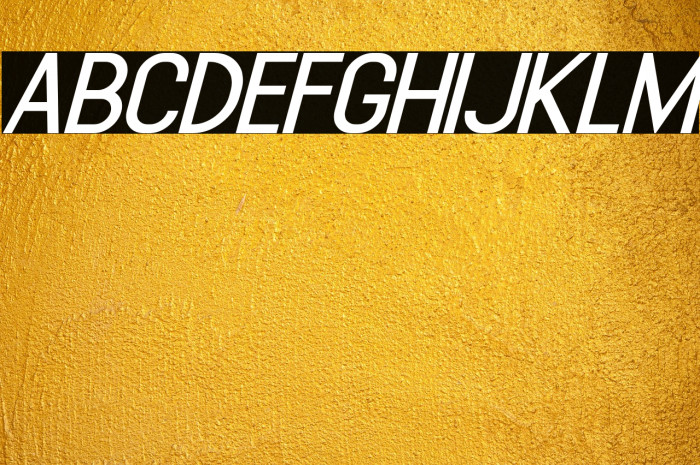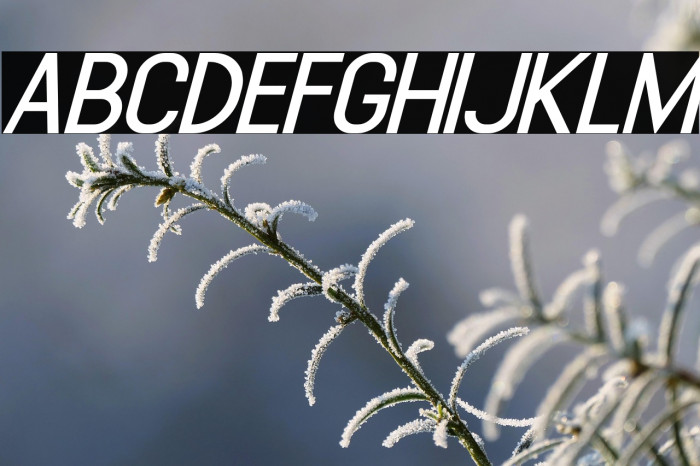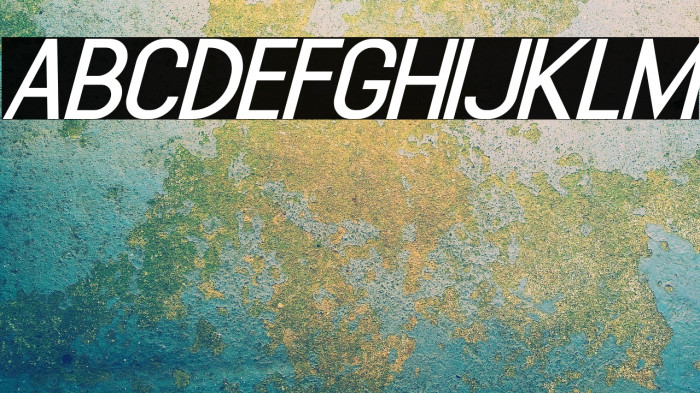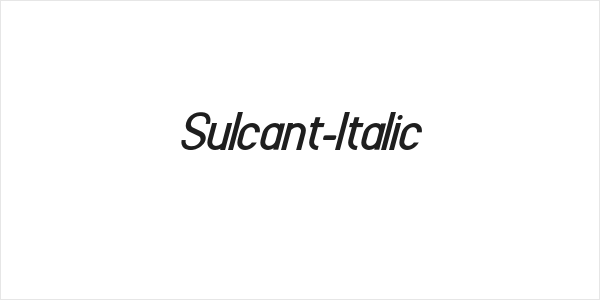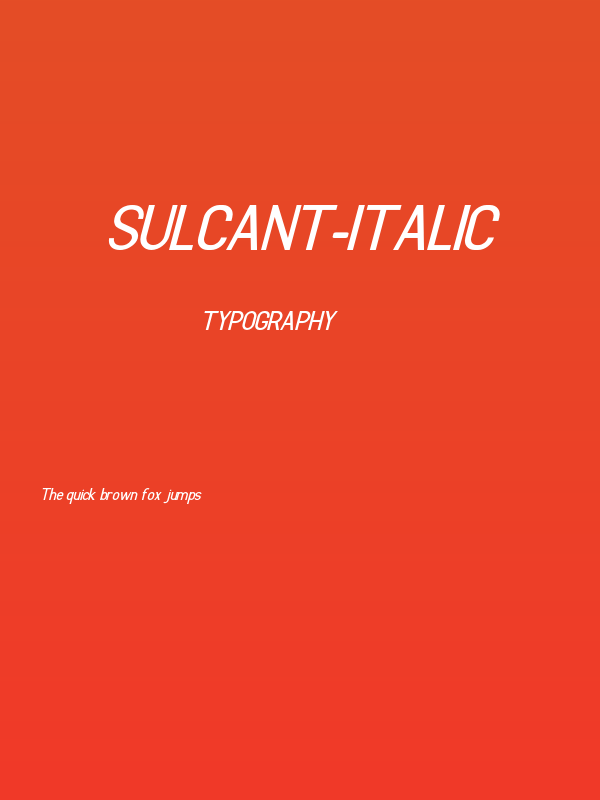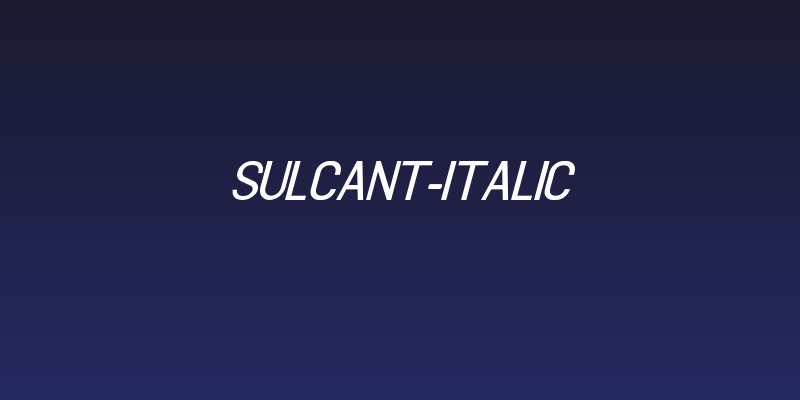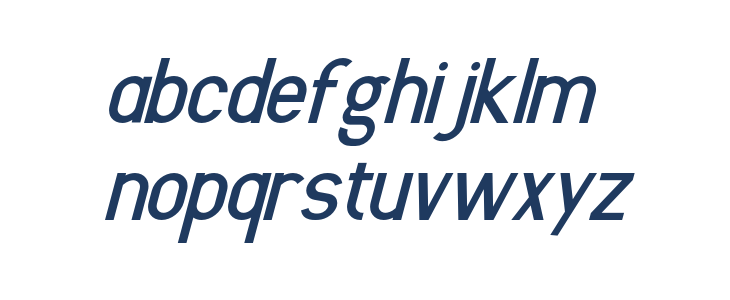
Sulcant-Italic Font
Sulcant-Italic Description
This font exhibits a sleek and modern italic style, characterized by its clean lines and slightly condensed form. The letters are slanted, giving a dynamic and forward-moving appearance. The strokes are consistent in weight, providing a uniform look across all characters. The uppercase and lowercase letters maintain a harmonious balance, while the numerals are clear and easy to read. Special characters are well-integrated, maintaining the overall aesthetic. This font's design is both functional and stylish, making it suitable for a variety of applications.
| Use Case | Headlines, Logos, Editorial design |
| Proposed Projects | Ideal for branding, advertising, and editorial design projects that require a modern and dynamic touch. |